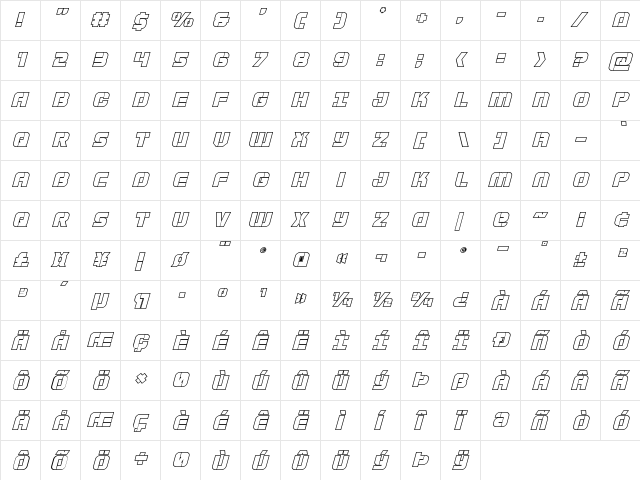
Super Submarine Outline Italic Font Preview
Design Context for Super Submarine Outline Italic Typeface
Super Submarine Outline Italic is built around its visual character rather than neutral utility — its distinctive forms are designed to make an impression at display sizes. The dynamic lean of this cut emphasises speed and emphasis in any layout.
Font Pairing: Pair with a clean neutral sans-serif for body copy to let Super Submarine Outline Italic's character lead without overwhelming the composition.
Pro Tip: Treat Super Submarine Outline Italic as the centrepiece of your typographic hierarchy. One strong heading set in a decorative face can carry an entire layout.